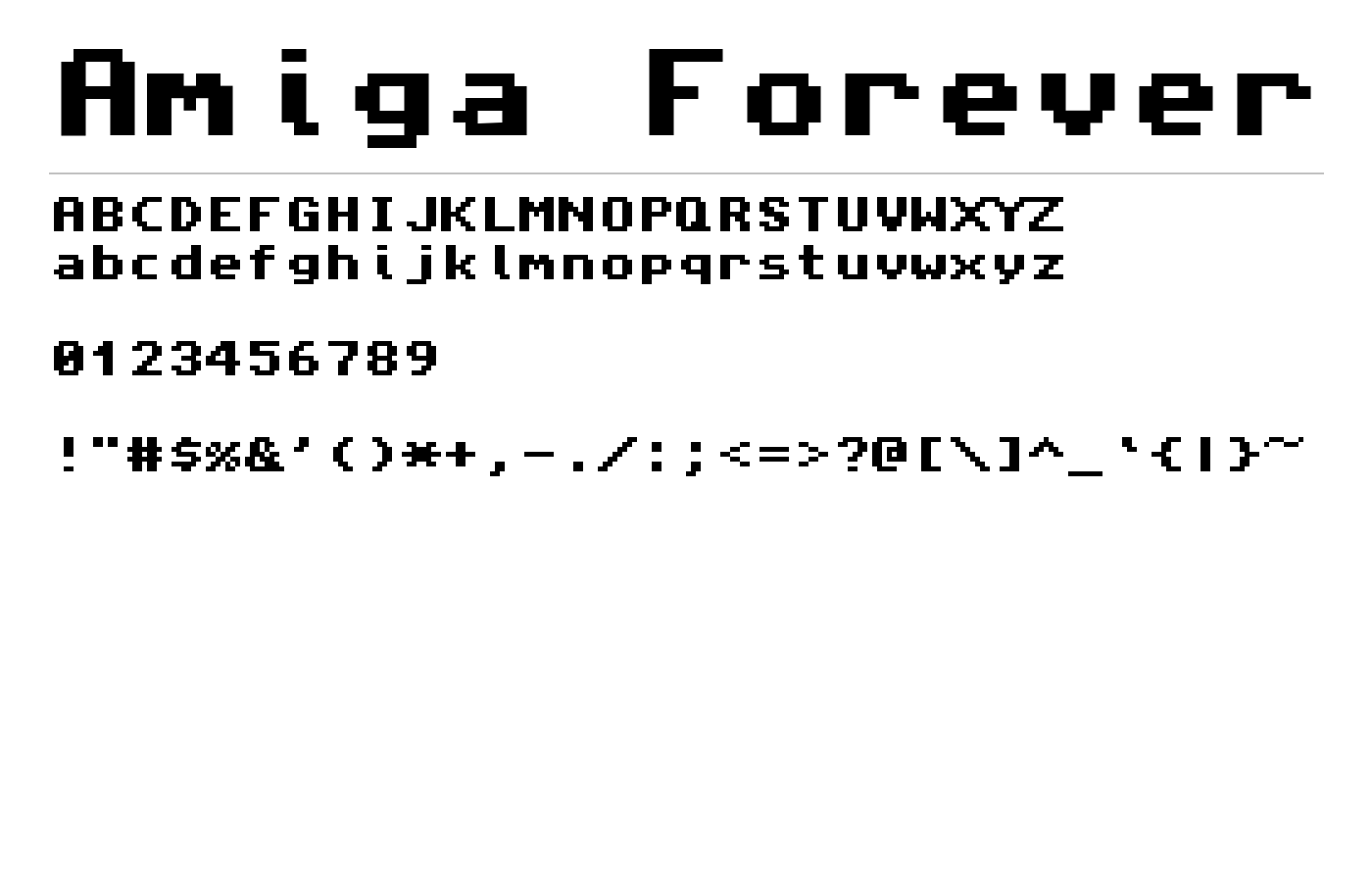
Amiga Forever Font is a pixelated, monospaced sans serif typeface that captures a retro, digital aesthetic reminiscent of early computer screens and video games. Its blocky, square letterforms with consistent stroke weight and low contrast give it a technical, nostalgic feel perfect for tech-themed projects, gaming interfaces, or any design seeking a vintage digital vibe. This font works best in headlines, logos, or any context where a strong, unmistakable pixel-art style is desired.
Amiga Forever Font
About Amiga Forever Font
| Font family | Amiga Forever Font |
| Designer | .:ck!:. |